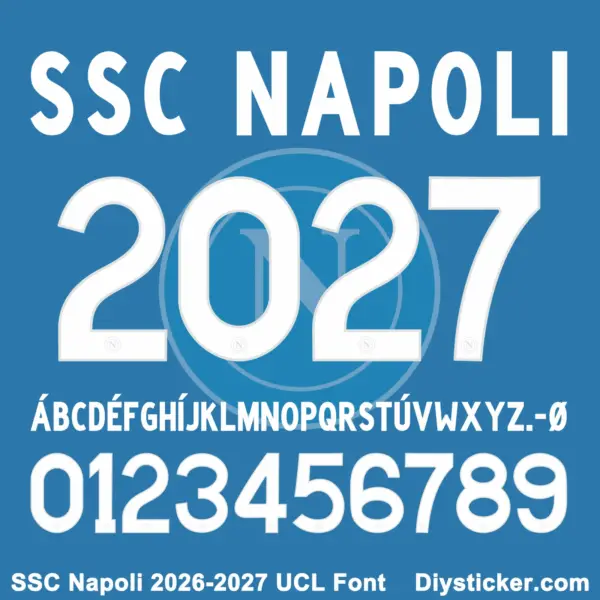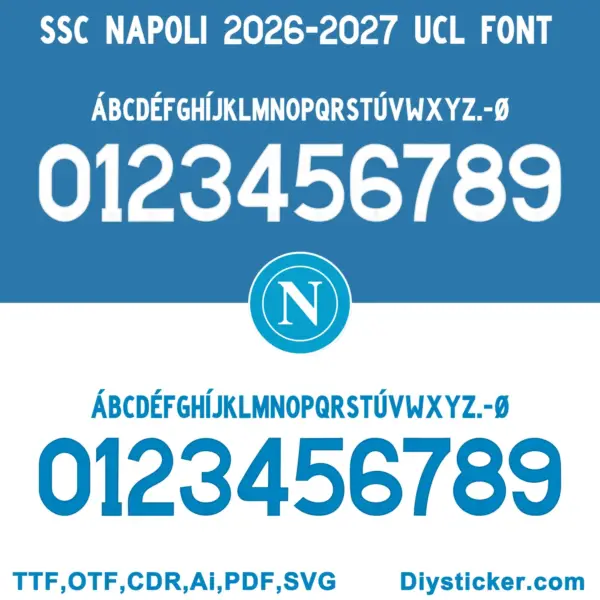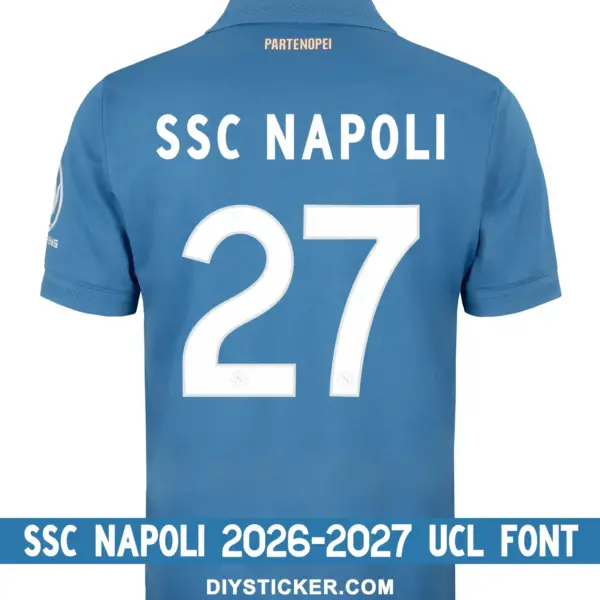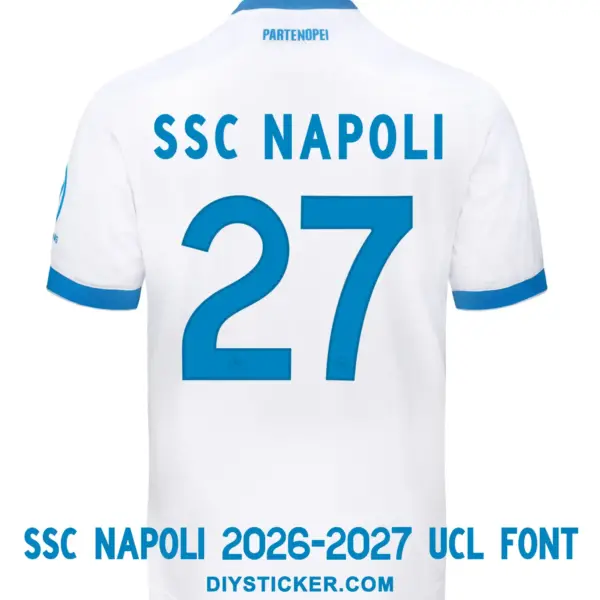
Bring authentic Gli Azzurri European match-day elegance to your custom kit printing with the official SSC Napoli 2026-2027 UCL font download! Custom-designed for kit customizers, heat-press operators, and sports apparel stores, this typography package features the official UEFA Champions League nameplate and numbering kit worn by Napoli. Designed with smooth, rounded condensed letterforms and numeric glyphs incorporating the iconic circular ‘N’ Napoli crest embedded at the base, it is the top custom jersey printing font SSC Napoli choice for DTF printing, vinyl cutting, and custom garment production.
Complete uppercase alphabet, SSC Napoli jersey numbers vector, and international diacritics (including
Á,Ć,Ç,É,Ğ,Í,Ñ,Ö,Š,Ü,Ø).
Elevate Your Kit Customization with the SSC Napoli 2026-2027 UCL Font
Elevate your custom football kit catalog with the official UEFA Champions League cup typography for SSC Napoli! Engineered for high-precision apparel production, this digital vector kit delivers an authentic SSC Napoli 2026-2027 UCL font download tailored to exact kit customization specs. The design showcases sleek, rounded uppercase character sets alongside bold, elegant numeric glyphs accented by the official SSC Napoli ‘N’ emblem embedded cleanly inside the base of each number.
Comprehensive Character Mapping
A-Z Uppercase Alphabet: Heavy, highly-legible condensed sans-serif letterforms tailored for back nameplates.
0-9 Custom Squad Numbers: Smooth, curved numeric glyphs featuring the official circular SSC Napoli crest embedded at the base (supplied as SSC Napoli jersey numbers vector).
Special Accents & Diacritics: Comprehensive international accents and punctuation (
Á,Ć,Ç,É,Ğ,Í,Ñ,Ö,Š,Ü,Ø,.,-) to accurately print star player nameplates using this custom jersey printing font SSC Napoli set.